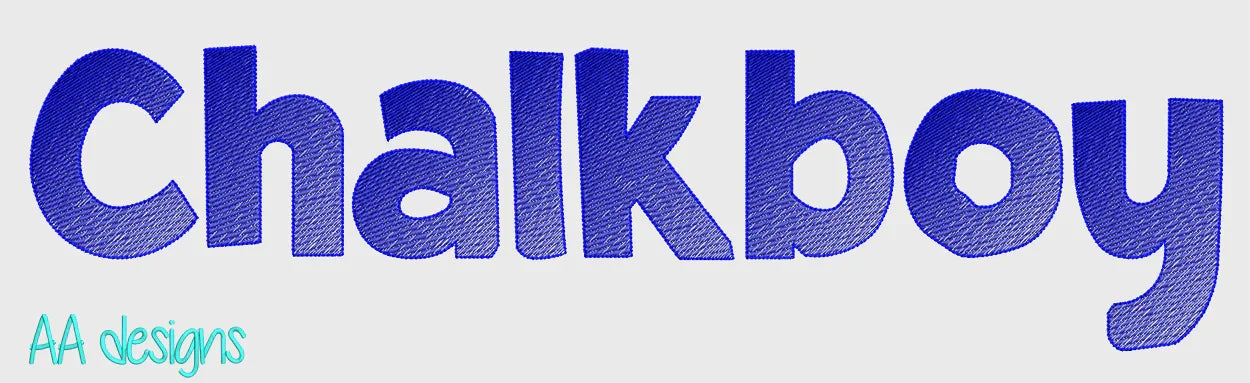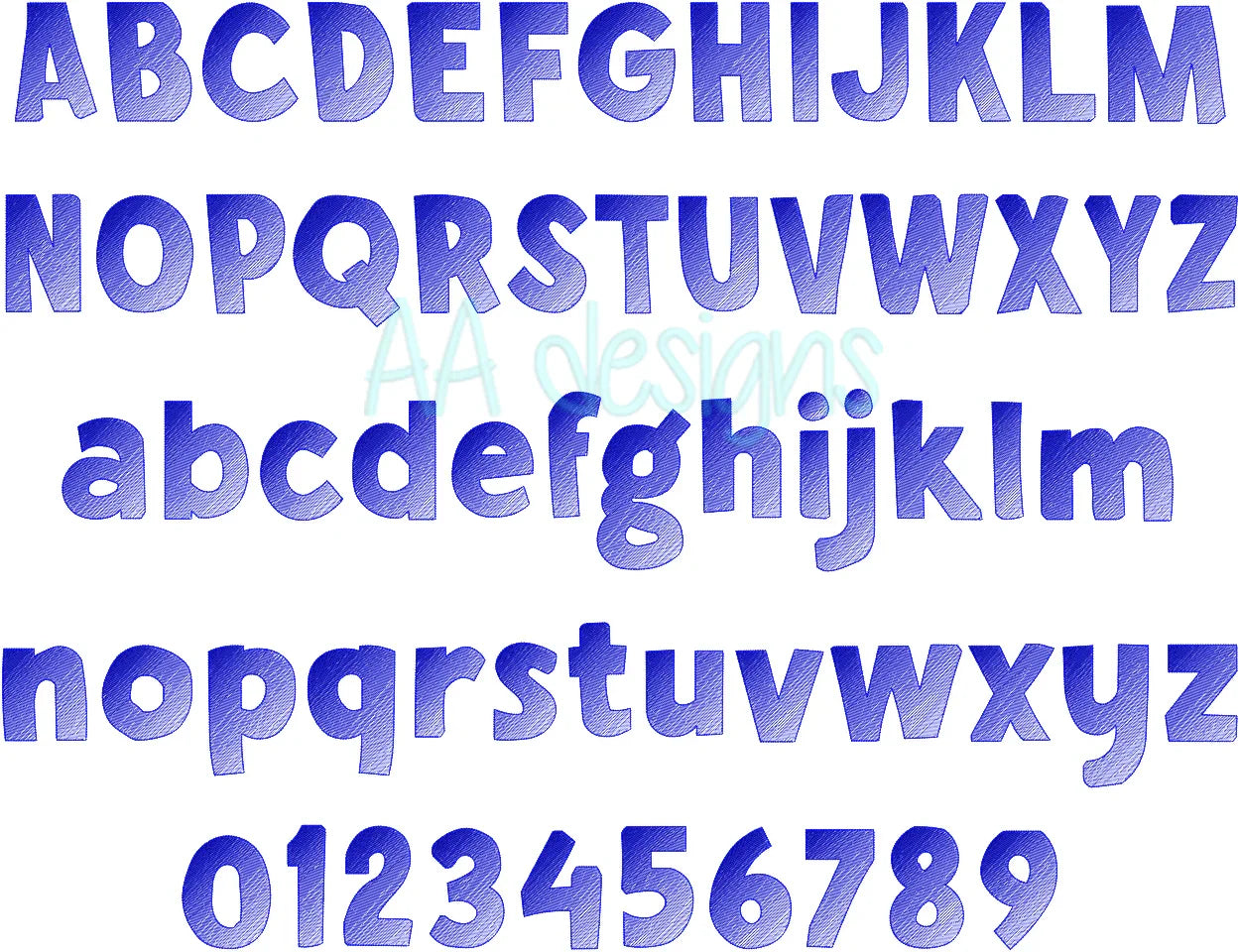
A clean, versatile embroidery font that works beautifully on any project. Great for monograms, baseball caps, tote bags, apparel, and personalized gifts.
- ✅ Full character set: uppercase, lowercase, numbers 0–9